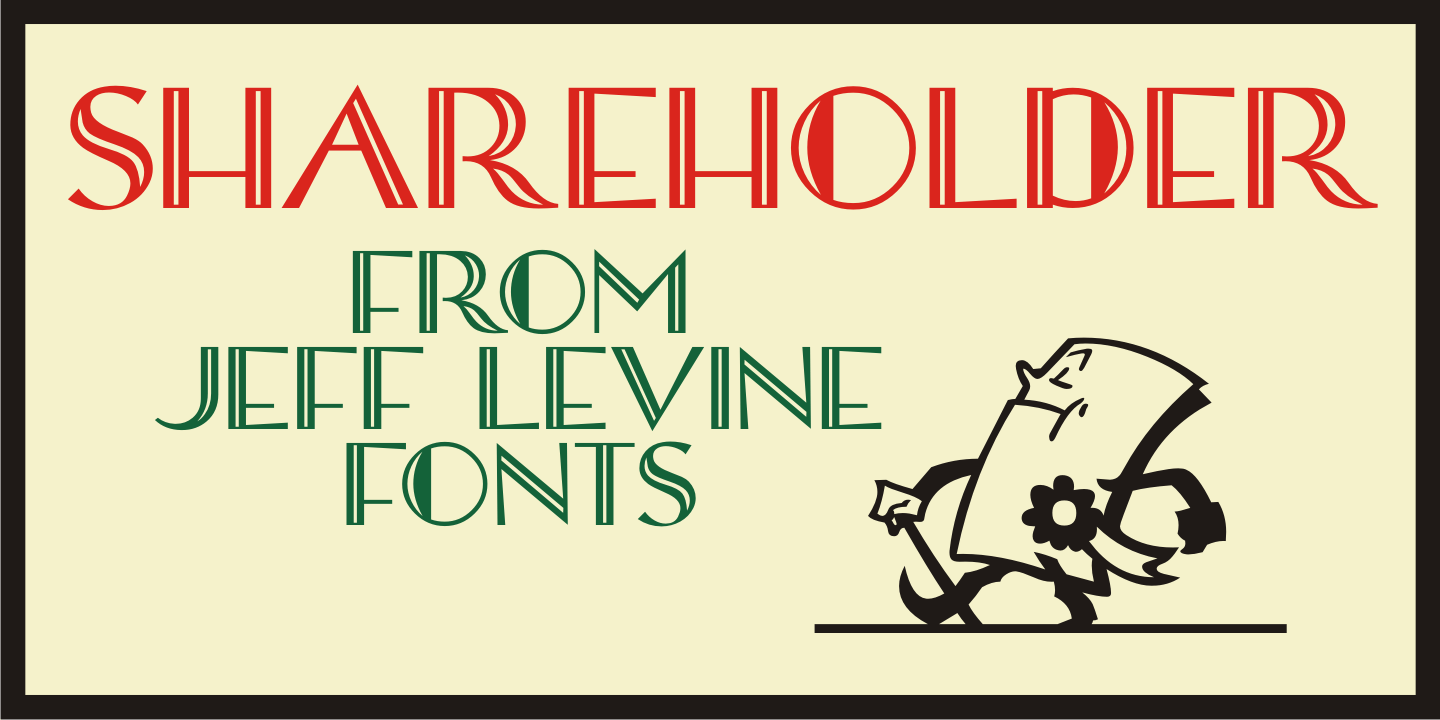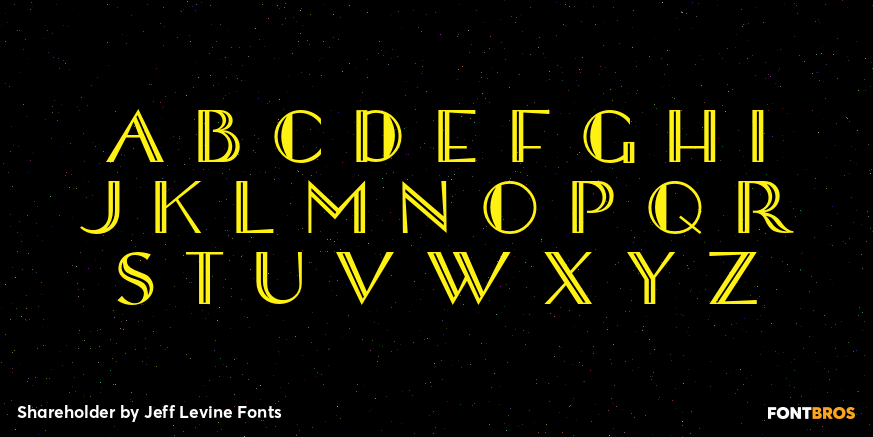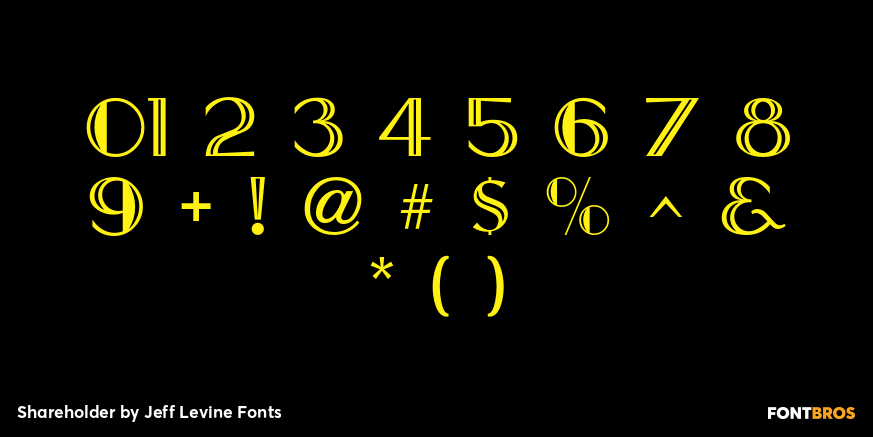
Shareholder
Shareholder JNL could possibly be found on a stock certificate, but in truth, it's based on hand-lettering found on some old sheet music entitled 'Sharing'.
Shareholder by Jeff Levine Fonts